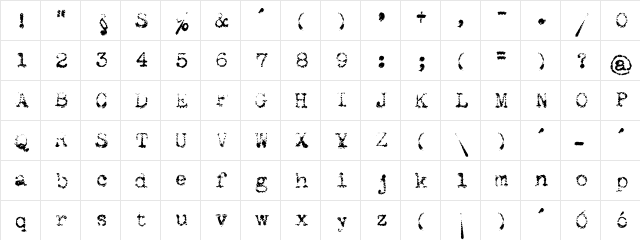
Maszyna Royal Light Regular Font Preview
Maszyna Royal Light Regular
Design Context for Maszyna Royal Light Typeface
Maszyna Royal Light is a composed and adaptable typeface that performs quietly and consistently across a wide range of design contexts. The delicate stroke weight brings airiness and refinement to layouts.